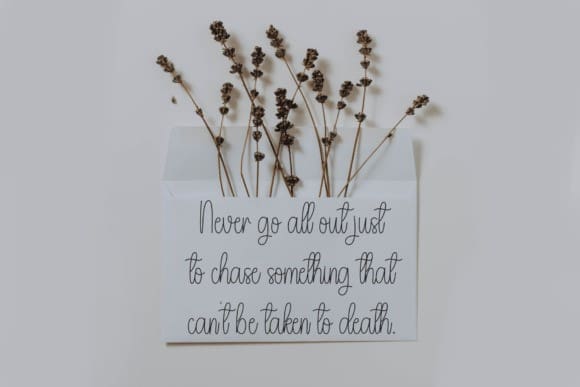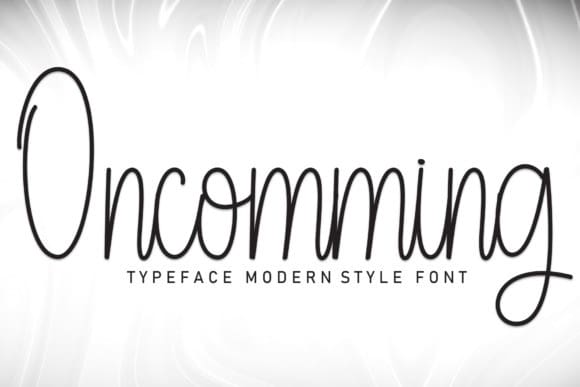
Oncomming Handwritten Font
Oncomming Handwritten Font is a captivating script and handwritten typeface that exudes elegance and personality. Its fluid strokes and varying line weights create a sense of dynamic movement and authenticity. Perfect for adding a touch of sophistication and handcrafted charm to logos, branding, invitations, and more.